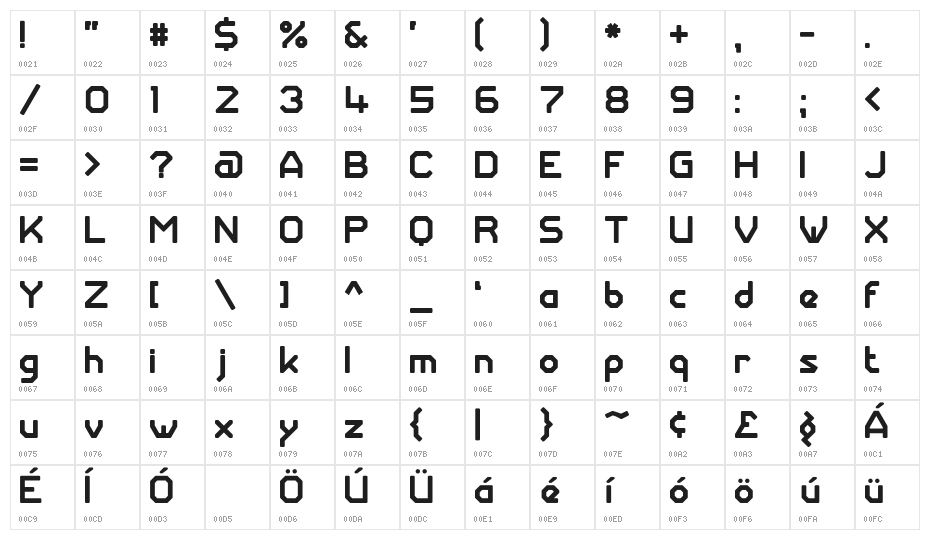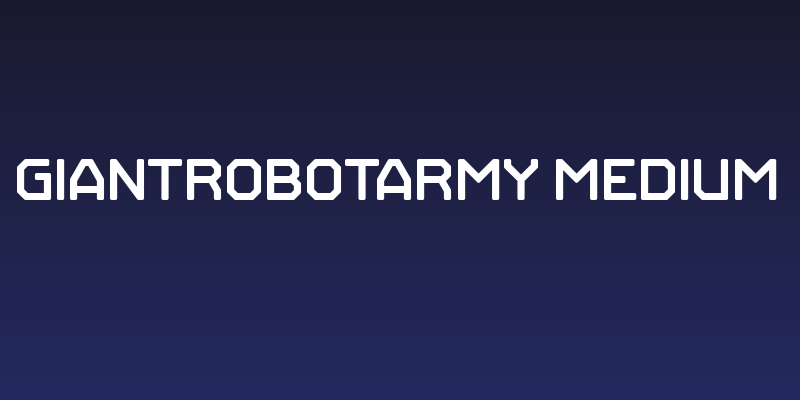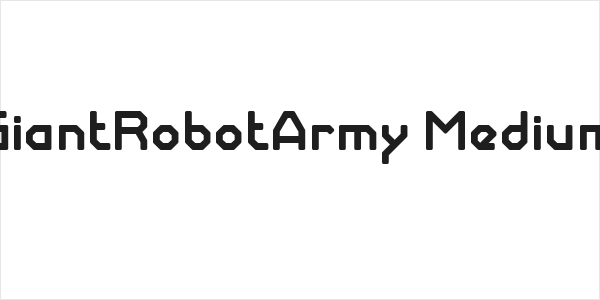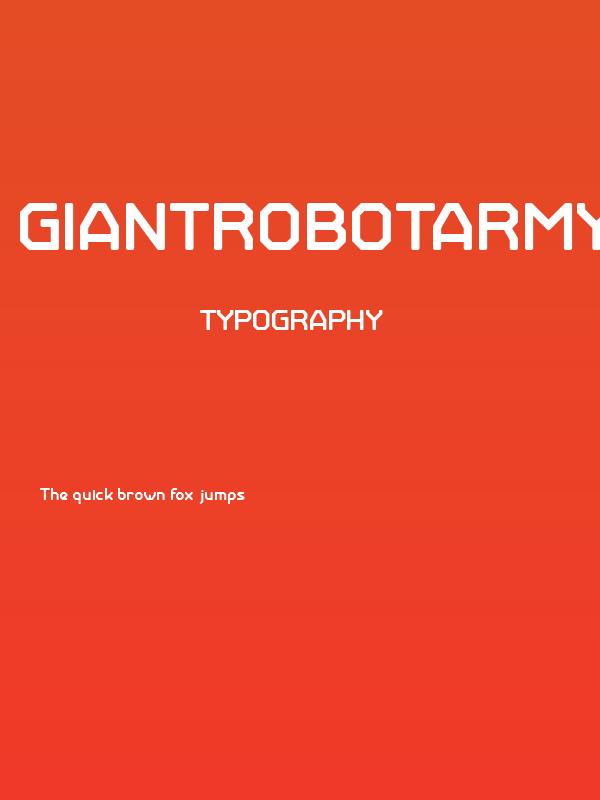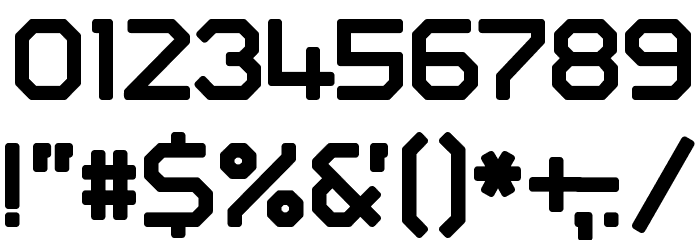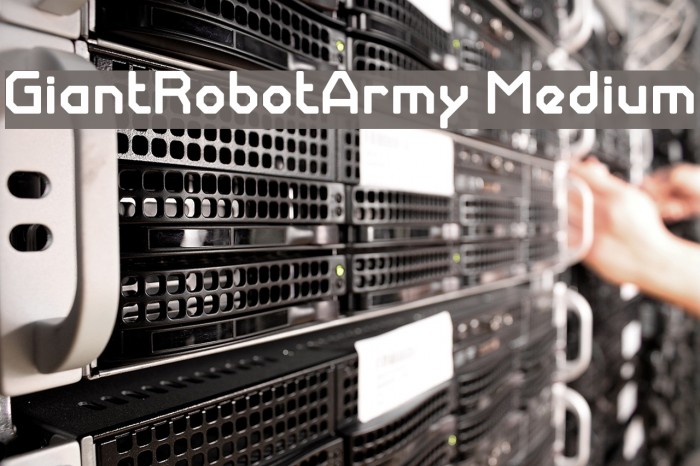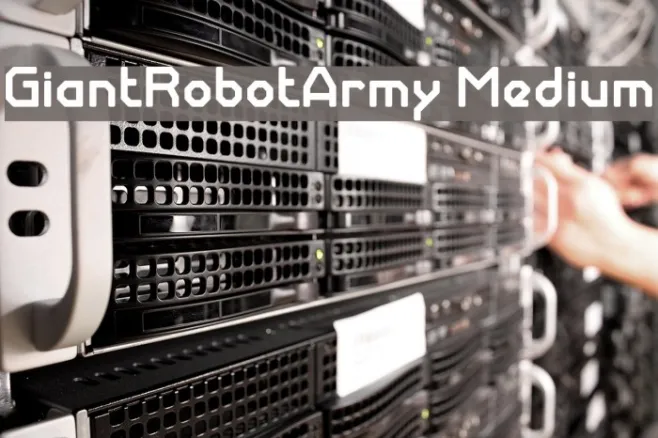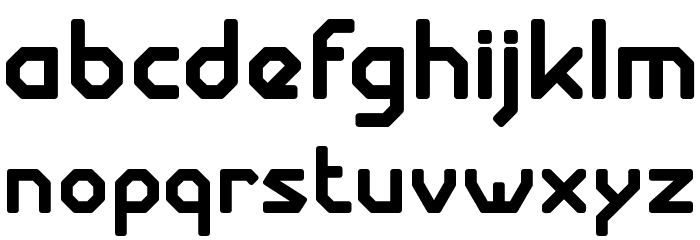
GiantRobotArmy Medium Font
GiantRobotArmy Medium Description
This font features a bold, geometric design with a futuristic and robotic aesthetic. The characters are constructed with uniform stroke widths, giving them a mechanical and structured appearance. The angular shapes and straight lines create a sense of precision and modernity. The uppercase and lowercase letters maintain a consistent style, with the lowercase mirroring the uppercase in form but reduced in size. Numbers and special characters follow the same design principles, ensuring a cohesive look across all glyphs. The font's unique style makes it stand out, suitable for projects that require a strong, technological feel.
| Proposed Projects | Ideal for technology branding, sci-fi movie posters, video game titles, and digital interfaces. |